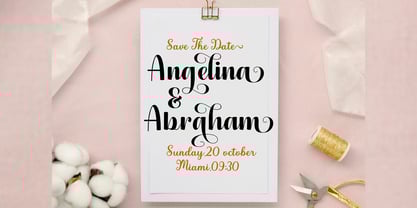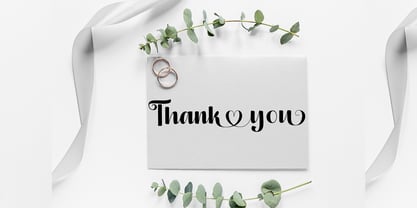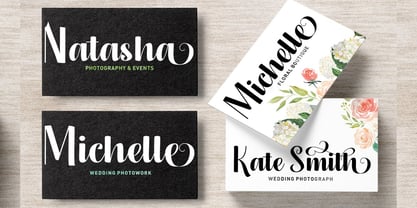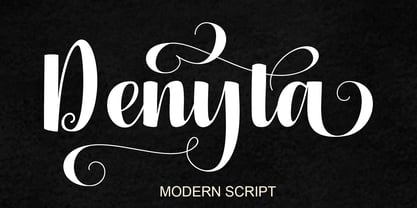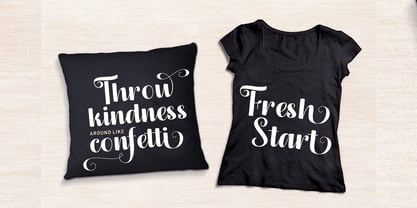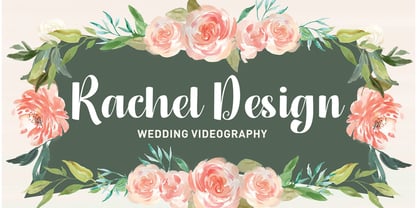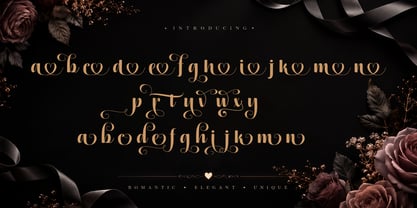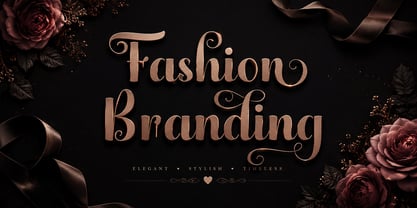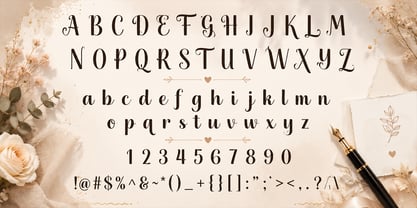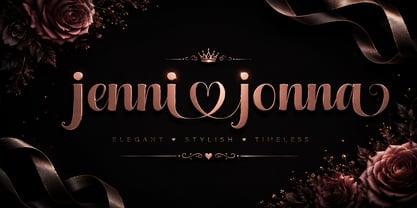
Denyta
The Denyta Font Family was designed by Teuku Saifullah and published by Shape Studio. Denyta contains 5 styles and family package options. More about this family
Denyta is a modern script font that combines elegance, luxury, and timeless beauty. Featuring smooth curves, stylish swashes, and carefully crafted letterforms, this font brings a sophisticated touch to any creative project.
Designed for designers, entrepreneurs, and branding professionals, Denyta is perfect for creating memorable logos, premium branding, wedding invitations, fashion editorials, beauty packaging, greeting cards, and elegant social media content.
Its graceful handwritten style offers excellent readability while maintaining a luxurious and professional appearance, making it suitable for both print and digital designs.
Features:
• Uppercase & Lowercase
• Numbers & Punctuation
• Multilingual Support
• Standard Ligatures
• Stylistic Alternates
Perfect For:
• Logo Design
• Luxury Branding
• Wedding Invitations
• Fashion & Beauty
• Boutique Branding
• Cosmetic Packaging
• Greeting Cards
• Social Media Graphics
• Product Packaging
• Quotes & Typography
• Editorial Design
• Signature Logos
Add elegance and personality to your designs with Denyta, a modern script font created to deliver a luxurious, stylish, and unforgettable impression.